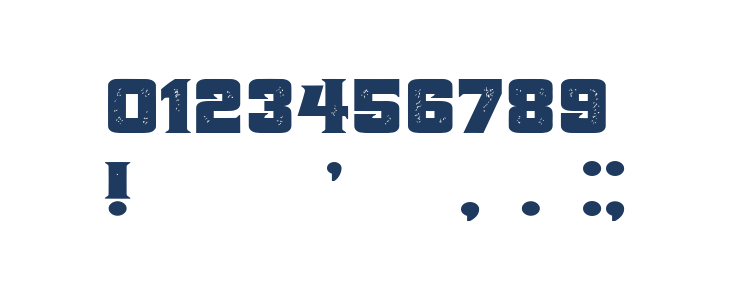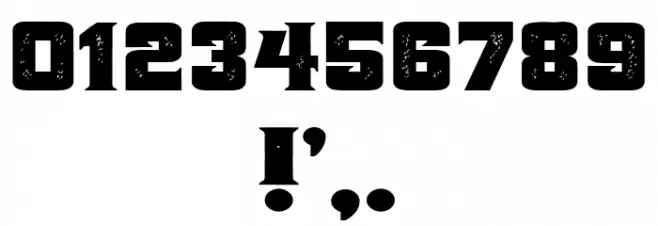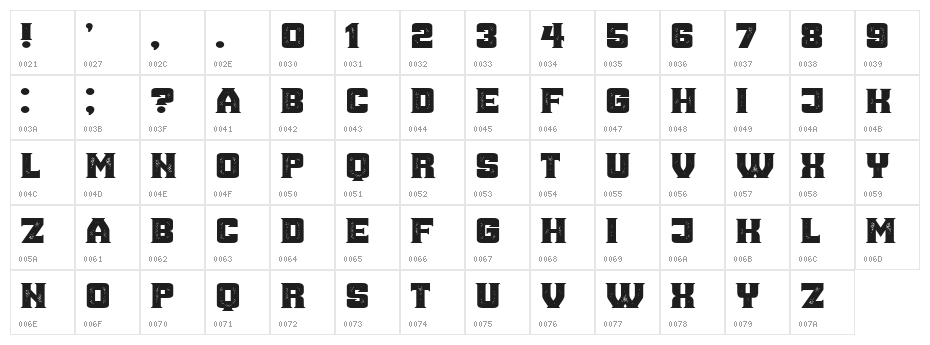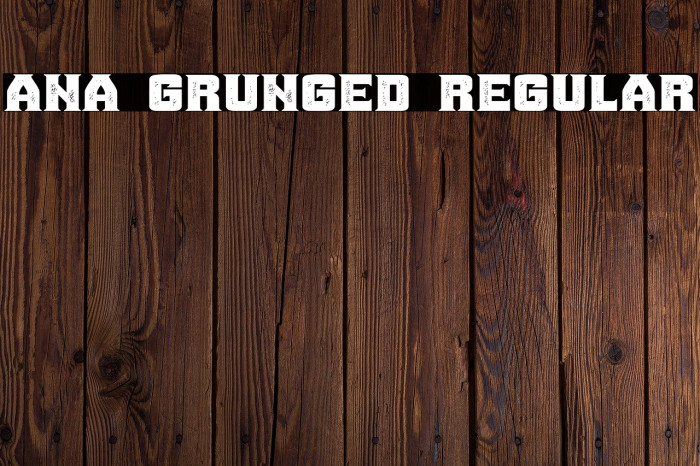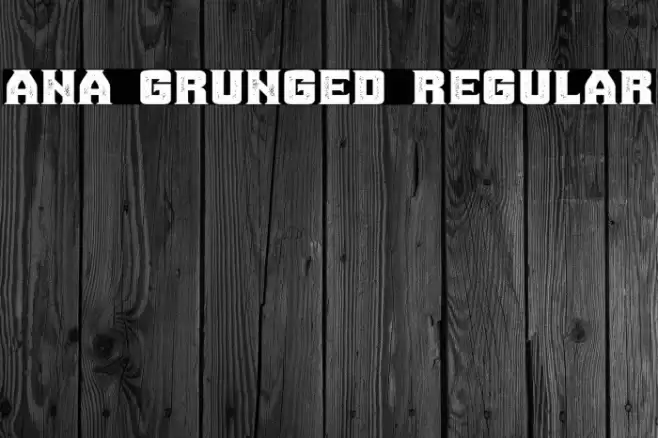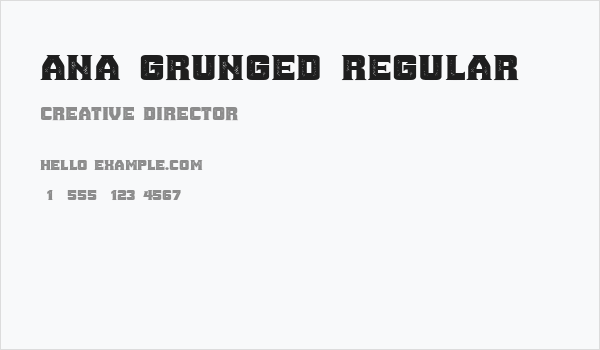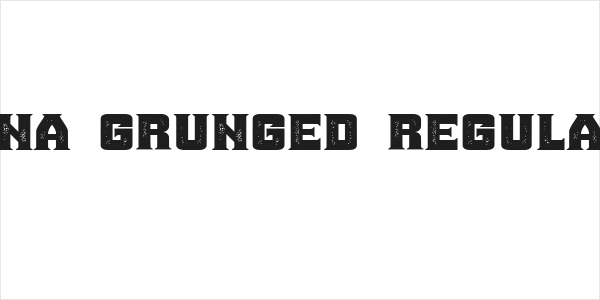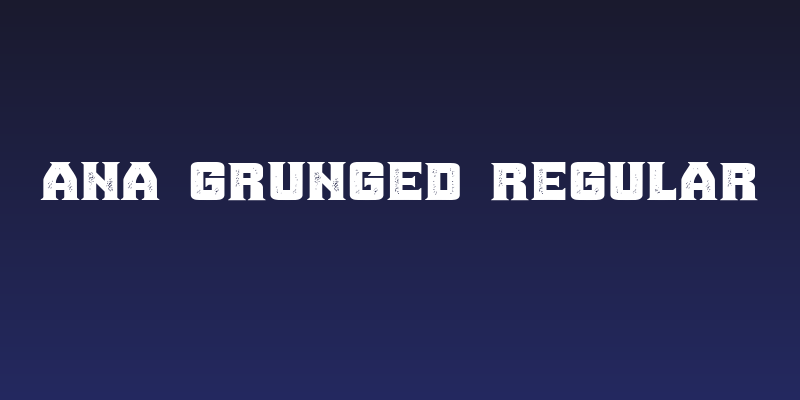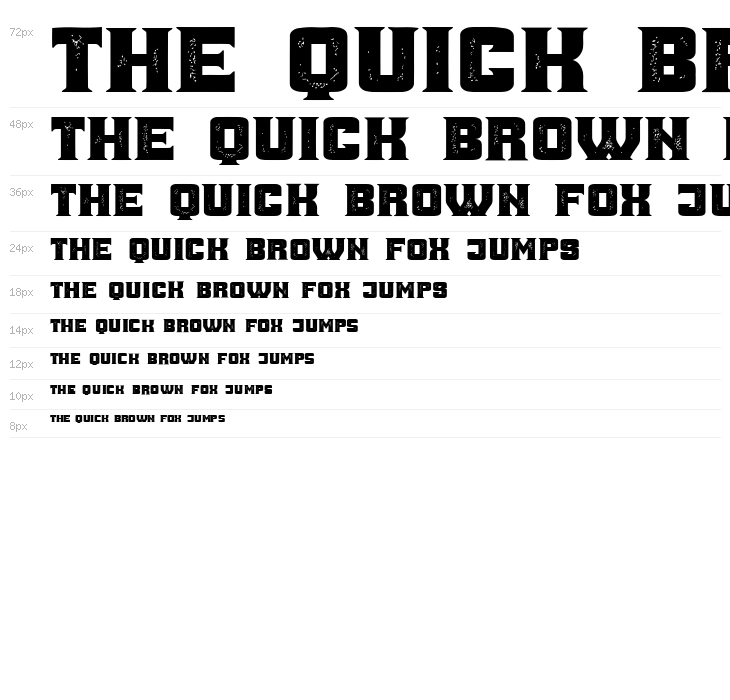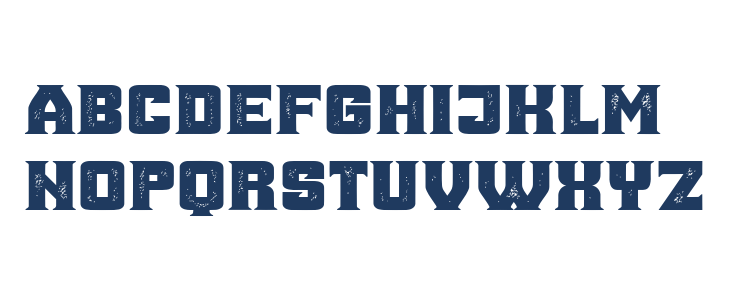
Ana Grunged Regular Font
Ana Grunged Regular Description
This font exhibits a bold, distressed style with a grungy texture that gives it a rugged and edgy appearance. The uppercase and lowercase letters are designed with a consistent thickness, featuring a slightly roughened edge that adds to its worn-out look. The numerals and special characters maintain this distressed aesthetic, making the font suitable for designs that require a vintage or industrial feel. The characters are well-defined, with a strong presence that stands out in any design. The overall style is reminiscent of old-school typefaces used in posters and signage, offering a nostalgic yet modern twist.
| Overall Style | Vintage, Grunge |
| Proposed Projects | Ideal for posters, album covers, branding for edgy or vintage-themed products, and any design requiring a bold statement. |